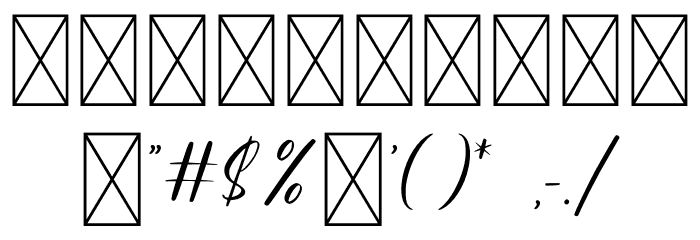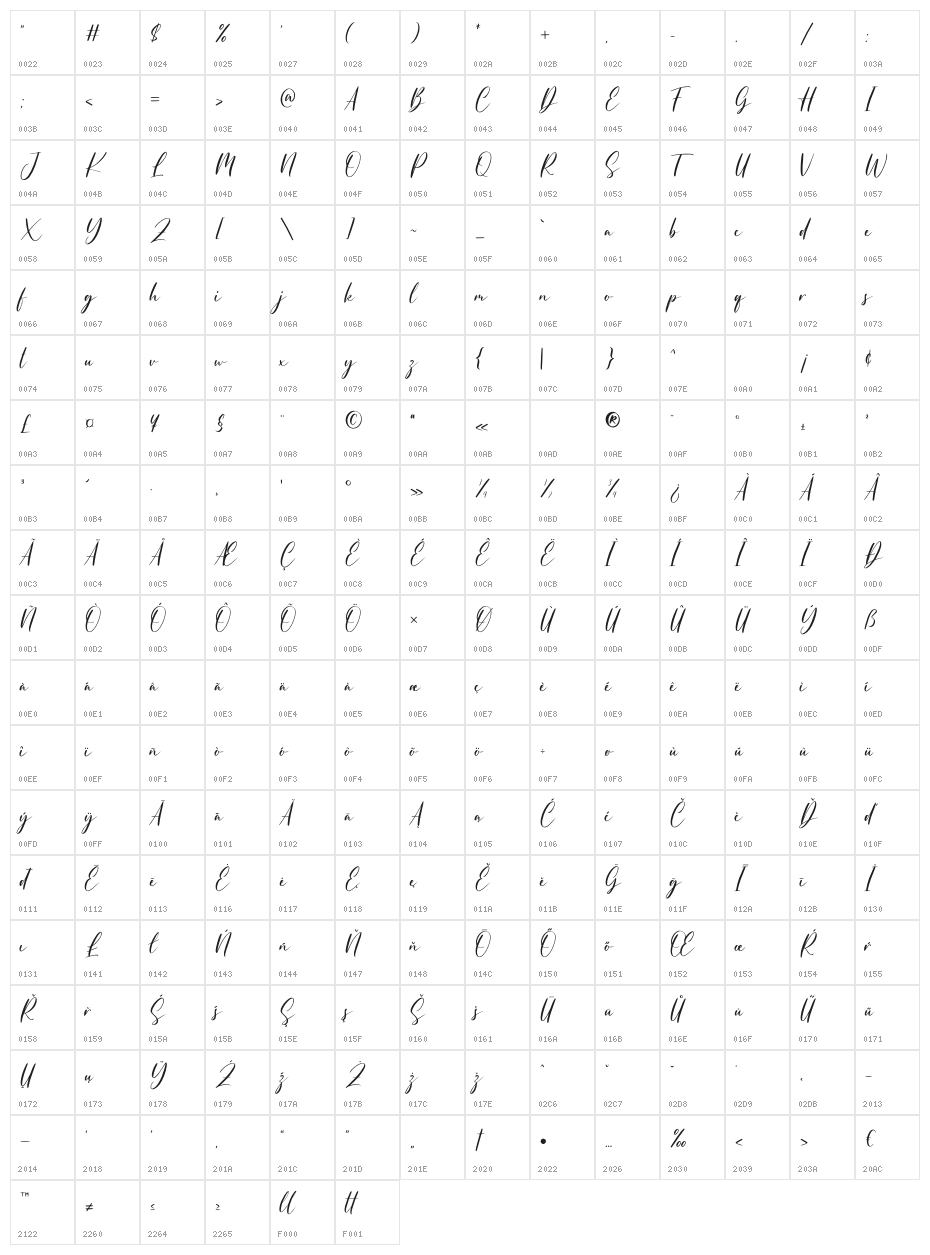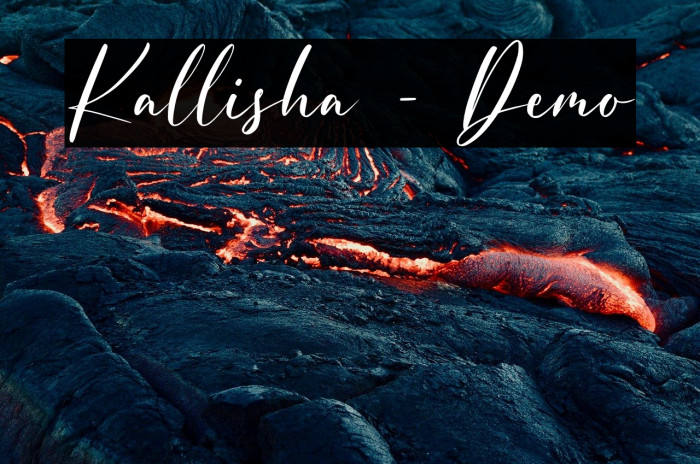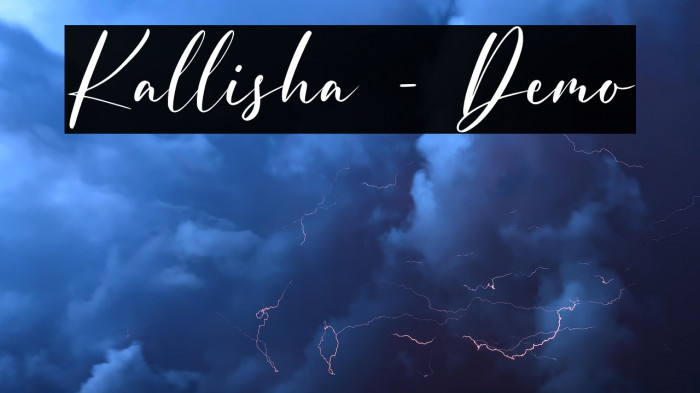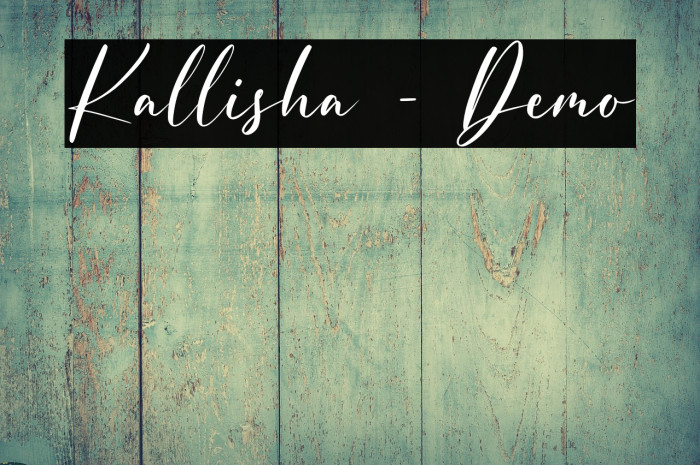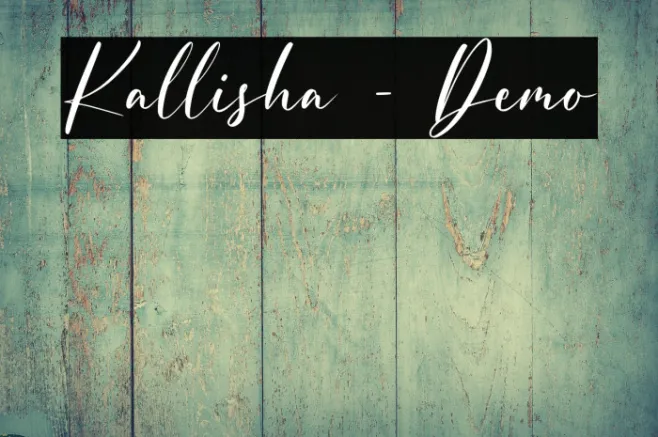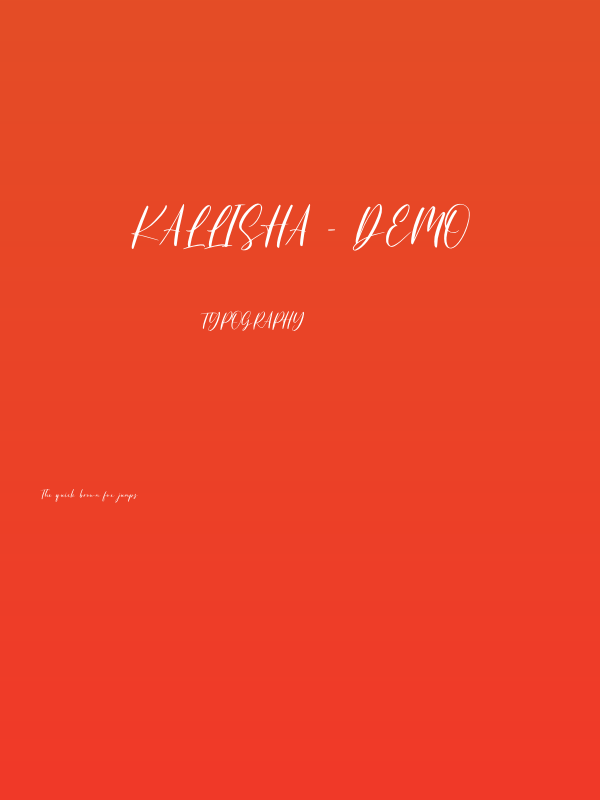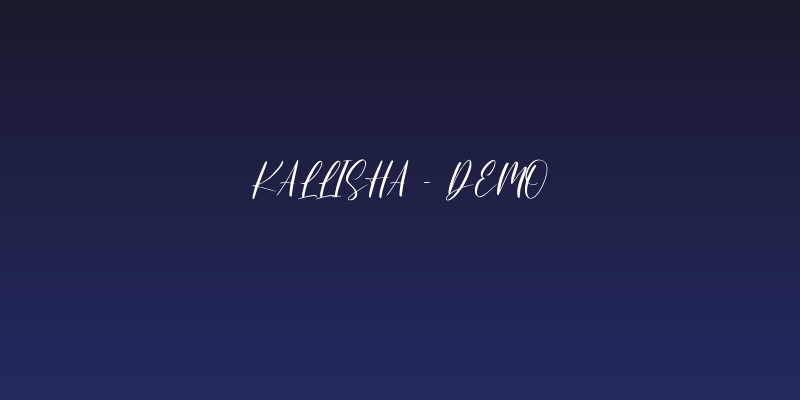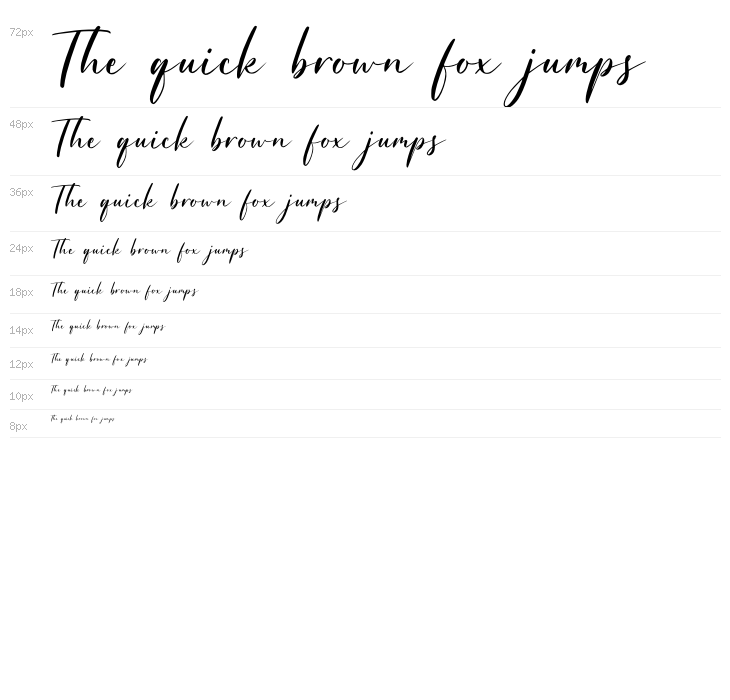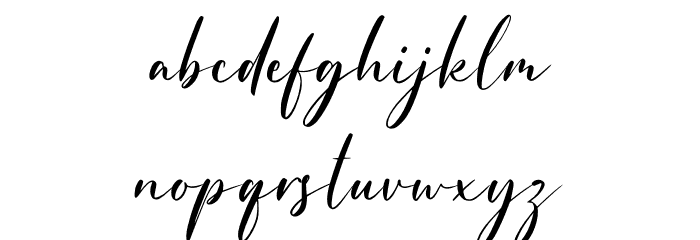
Kallisha - Demo Font
Kallisha - Demo Description
This elegant script font features a flowing, cursive style with a modern touch. The uppercase letters are tall and graceful, with sweeping curves and varying stroke widths that add a sense of movement and sophistication. The lowercase letters maintain a consistent flow, complementing the uppercase with their smooth, connected strokes. The font's overall appearance is both stylish and readable, making it suitable for a variety of design projects. The special characters are well-integrated, maintaining the font's elegant style. This font is perfect for creating eye-catching headlines, invitations, and branding materials that require a touch of elegance and flair.
| Use Case | Headlines, Invitations, Branding |
| Proposed Projects | Ideal for wedding invitations, branding, logos, and elegant stationery. |